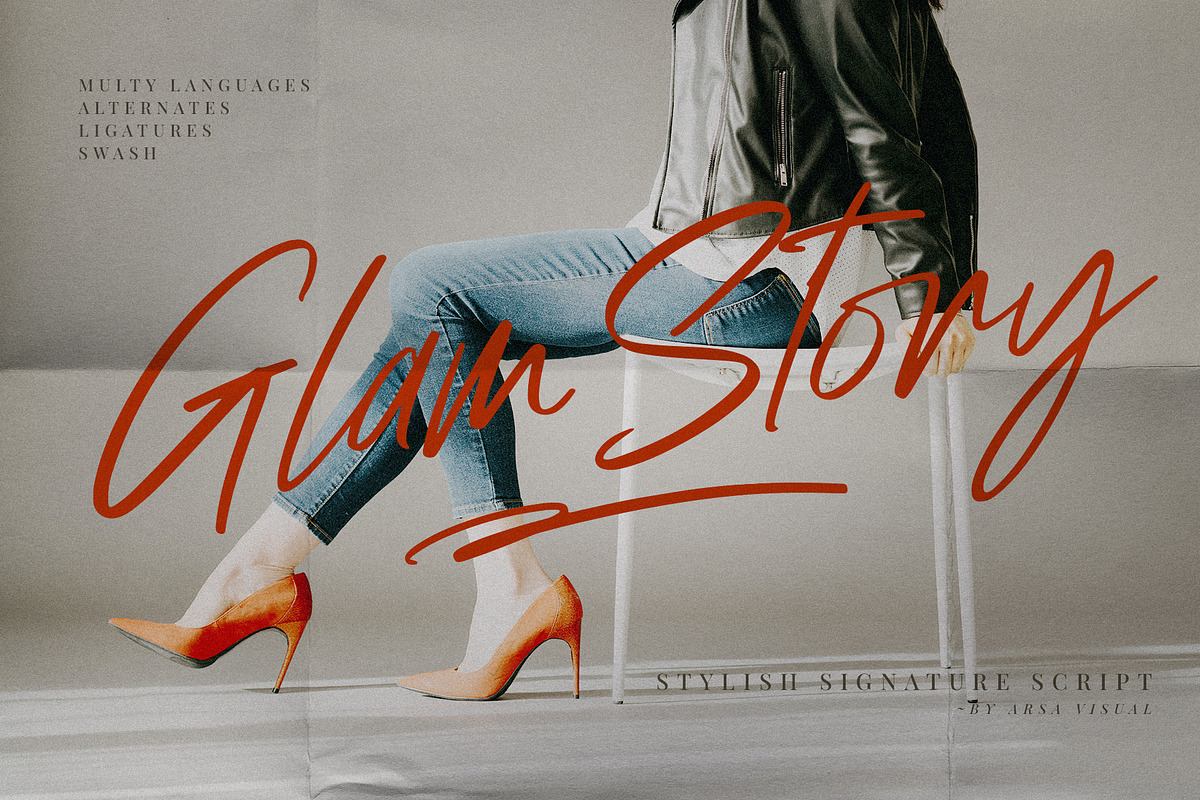
Glam Story | Script Font Free Download is an elegant and sophisticated script typeface designed to bring a glamorous touch to your creative projects. With its flowing curves, high contrast strokes, and a bold, modern flair, Glam Story is perfect for wedding invitations, fashion branding, social media posts, logos, and upscale marketing materials.
This script font is ideal for designs that require a balance of elegance and personality, offering a refined yet expressive style that works beautifully in both print and digital media.